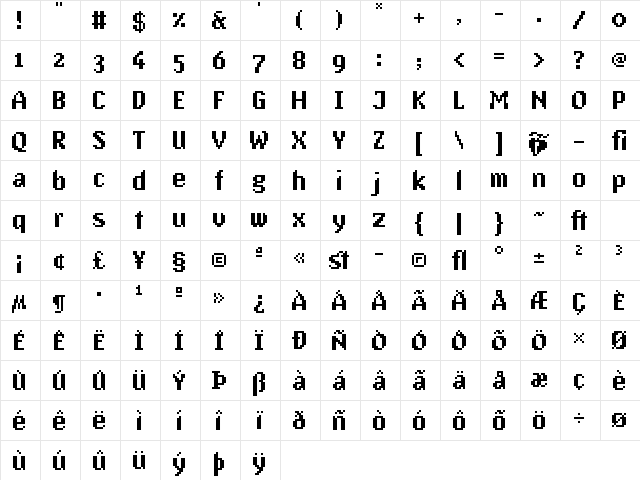
PixAntiqua Medium Free Font
PixAntiqua Medium
Design Context for PixAntiqua
PixAntiqua is a composed and adaptable typeface that performs quietly and consistently across a wide range of design contexts.